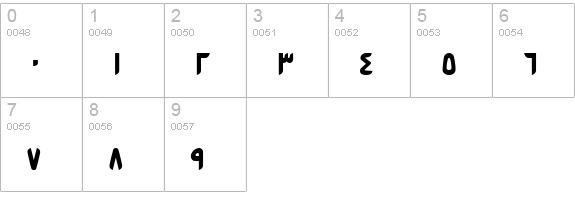
B Esfehan Bold Font Details
B Esfehan Bold is a strong, high-contrast variant in the B typeface family \xE2\x80\x94 well suited to headlines, attention-grabbing titles, and strong calls-to-action.
B Esfehan Bold font is a stunning and bold typeface that commands attention with its strong and impactful design. Its thick strokes and sharp edges make it perfect for headings, titles, and other prominent text. The font exudes a sense of confidence and authority, making it ideal for projects that require a bold statement. What makes B Esfehan Bold font even more appealing is that it is available for free download at FontsMarket.com. This means you can easily access this striking typeface without having to worry about any costs. Whether you're designing posters, banners, or logos, B Esfehan Bold font is sure to make a bold impression and elevate your designs to the next level. Download it today and add a touch of boldness to your projects!